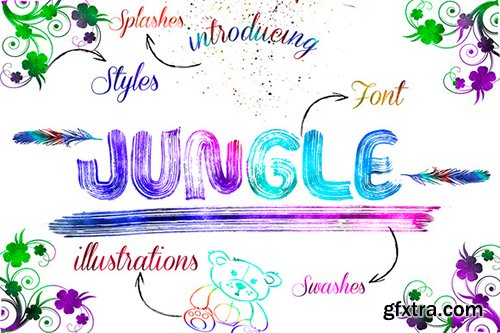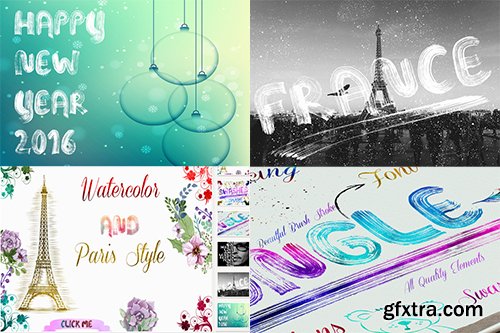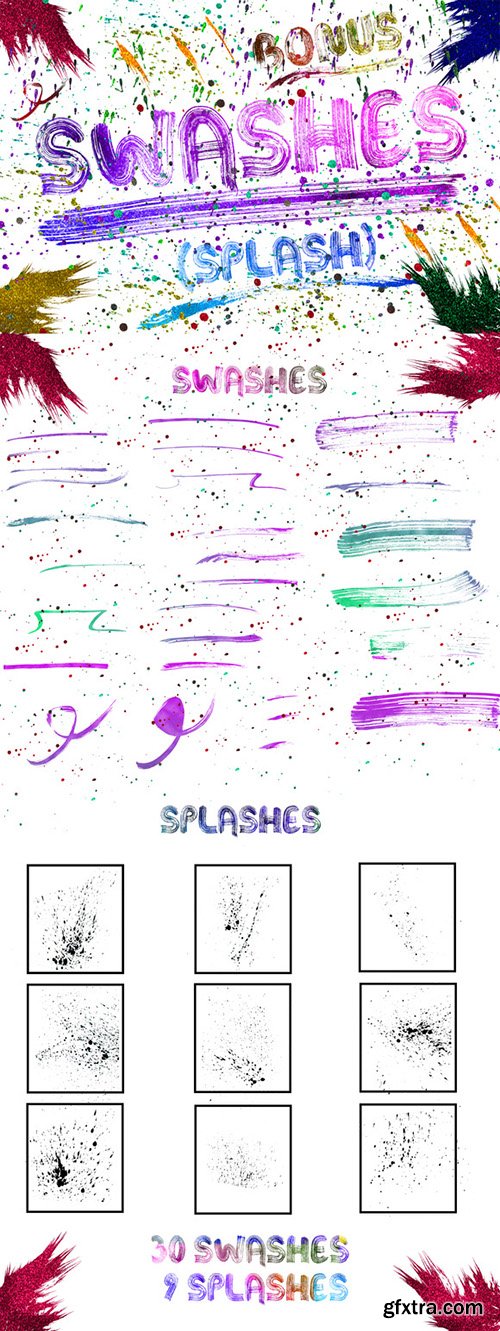
Upparcase | Number and Symbols | 17 Watercolor Styles | 4 Apstract Styles | 29 Paris Styles | 50 Illüstrations | 30 Swashes | 9 Splashs
Thick handmade, perfect brush strokes and curves of a font that is clear.
You will notice the same brush in the movement of figures and symbols.
Flow in the brush elements is clearly evident. At the end of the letters in a beautiful spot in the movement will catch your attention.
Decorations are compatible with the font. There are appropriate decorations for every word and sentence you write.
Styles are excellent and simple colors, mixed colors, silvery, contains a great variety styles as much too complicated.
Illustrations are available. Cute and they should use a lot.
I highly recommend that you use splashes.